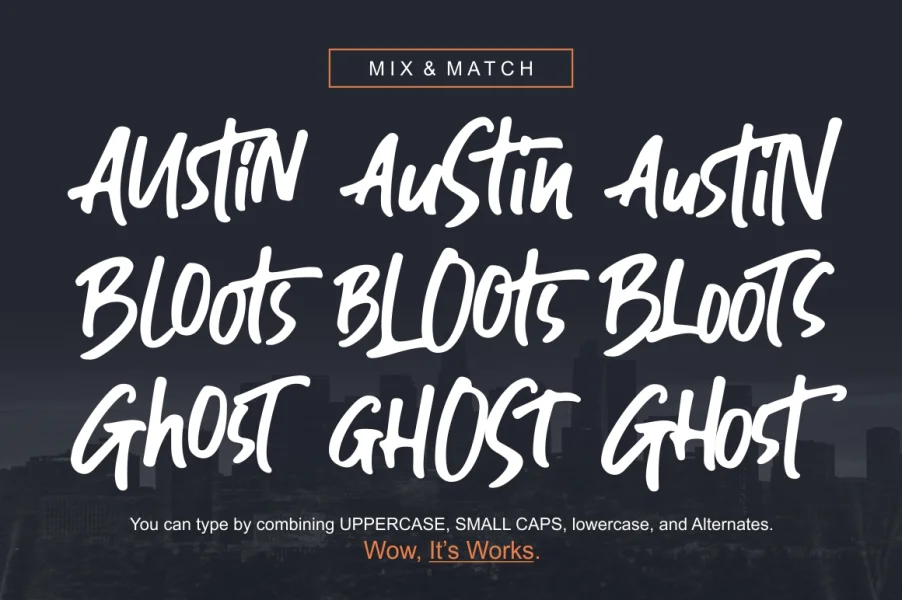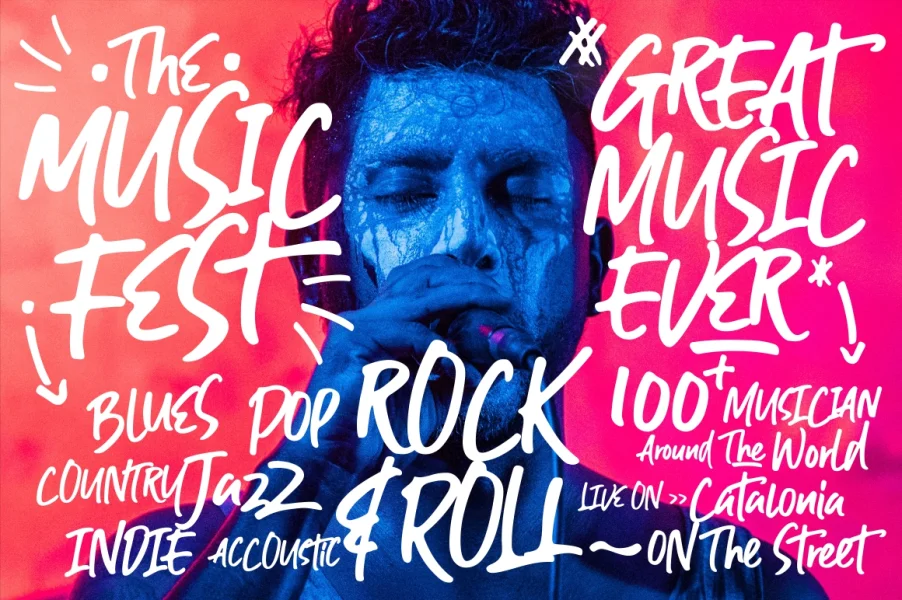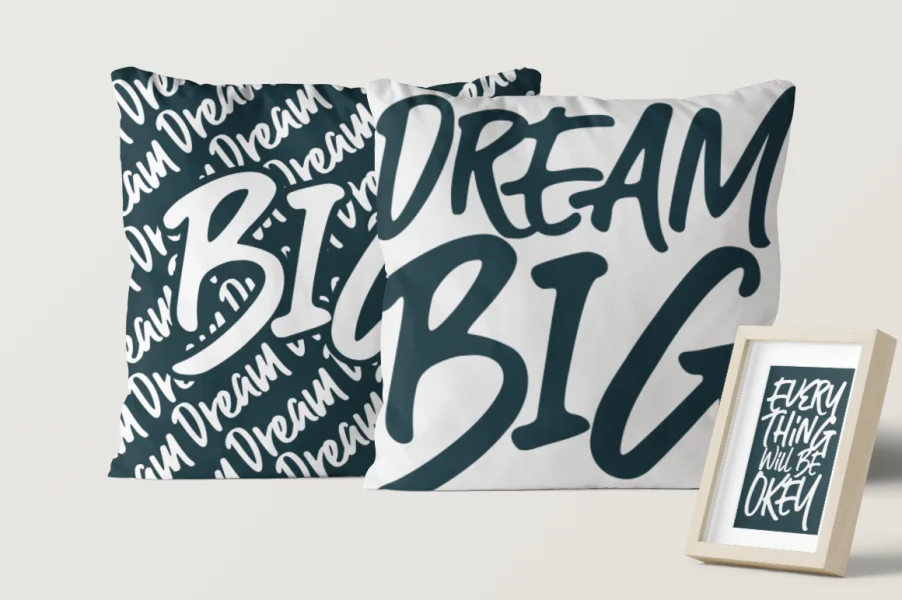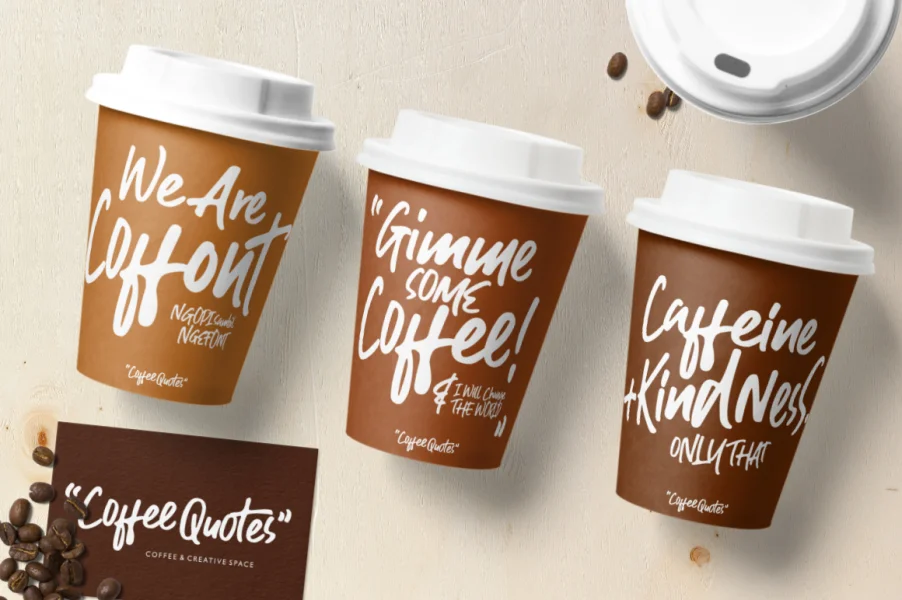
Guthen Bloots is a smooth marker font with two stylish alternates. This font made with perfect combining of each characters. You can type by mix and match to get a unique combining. It looks original and can be used for all your project needs. Each glyph has its own uniqueness and when meeting with others will provide a dynamic and pleasing proximity. This font can be used at any time and any project.
Guthen Bloots give its touch to all your design projects such as quotes, poster design, personal branding, promotional materials, logotype, product packaging, etc.
This Font can be used for costum types with different style. Just switch by mix and match with others. And than enjoy your own style version.